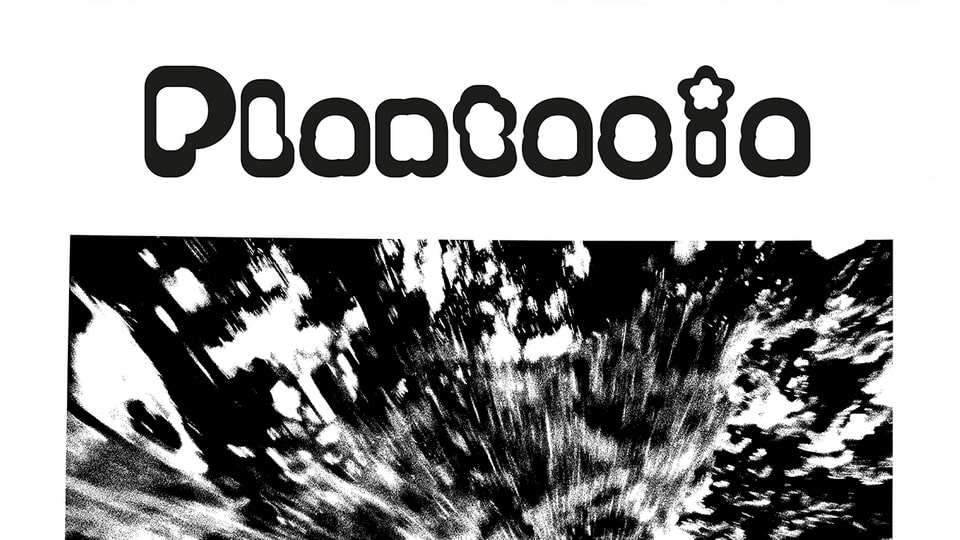
Download Plantasia Calacarn font, a unique display typeface inspired by the Caladium Carnival. Plantasia is a typeface family created by the students of the G5 Communication 360 class
Designer: Léonard Petit